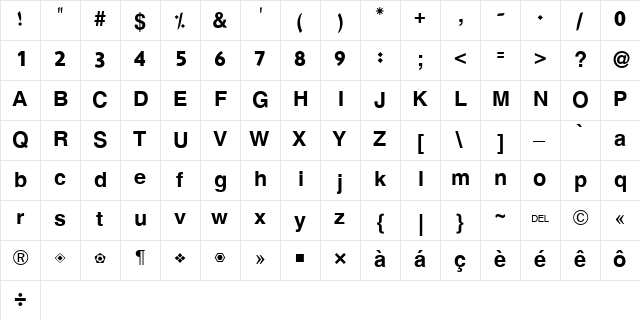
Hacen Egypt Regular
| Foundry | Muhammad Hacen |
| Designer | Muhammad Hacen |
Design Context for Hacen Egypt Typeface
Hacen Egypt offers clean, dependable letterforms without strong stylistic allegiance, making it a practical choice for designers who need flexibility.